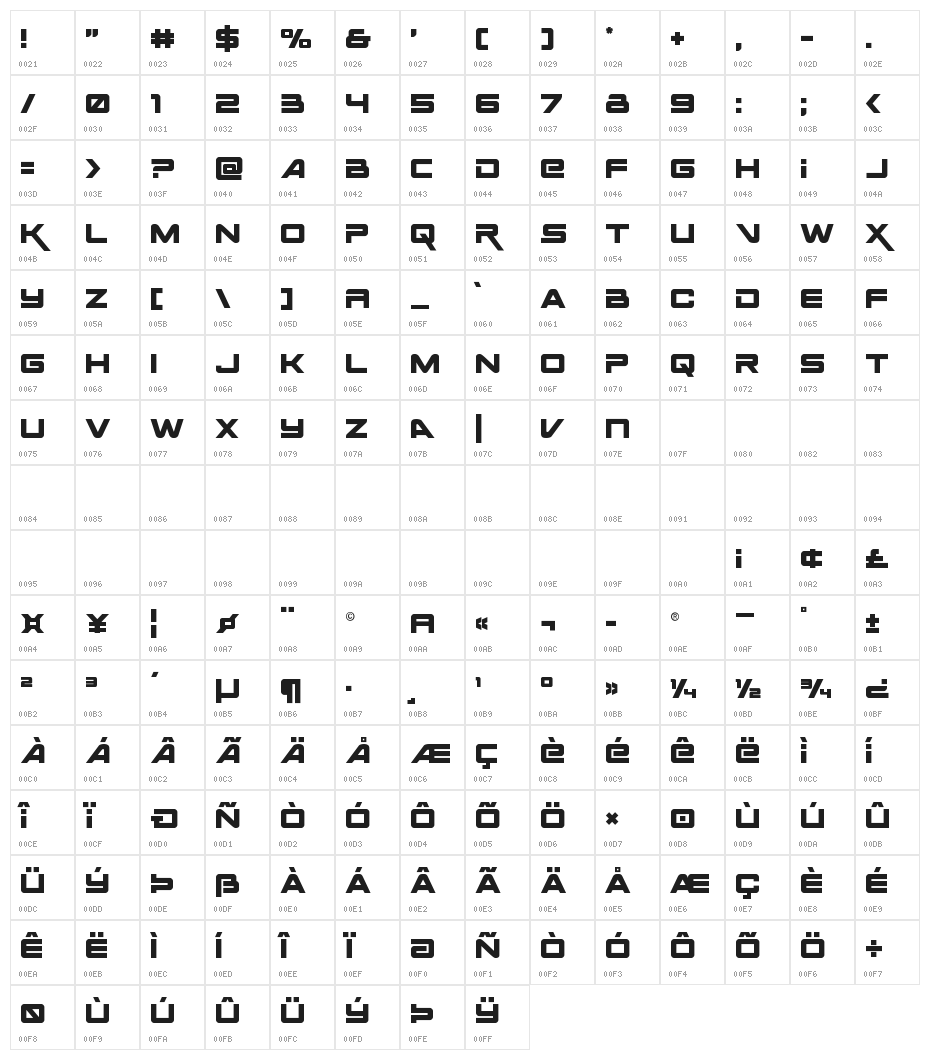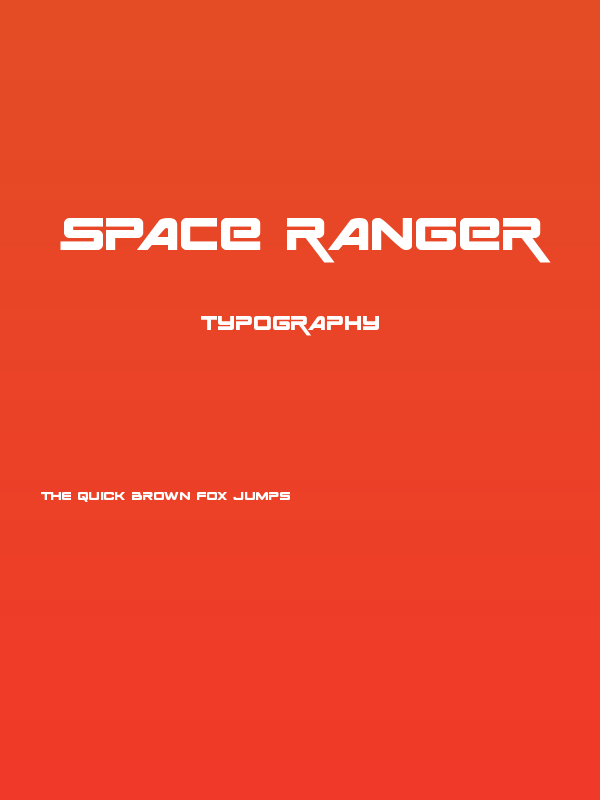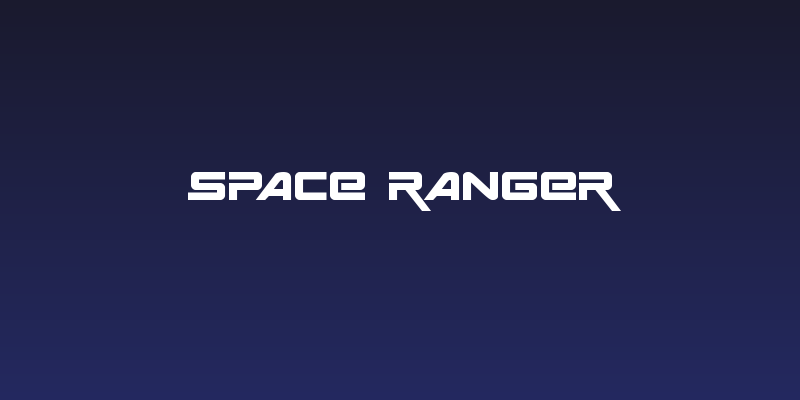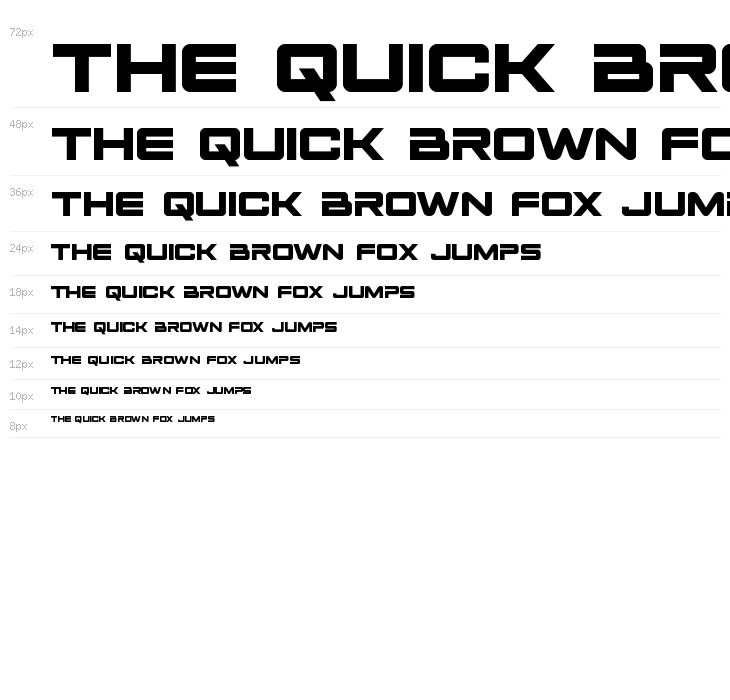
Space Ranger Font
Space Ranger Description
This font features a futuristic and angular design, characterized by sharp edges and geometric shapes. The uppercase letters are bold and assertive, with a distinct sci-fi aesthetic. The lowercase letters maintain the same angular style, providing a cohesive look throughout. Numbers and special characters are designed with the same attention to detail, ensuring consistency across all glyphs. The font's unique style makes it stand out, ideal for projects that require a modern and technological feel.
| Proposed Projects | Ideal for sci-fi movie posters, video game titles, technology branding, and futuristic-themed designs. |